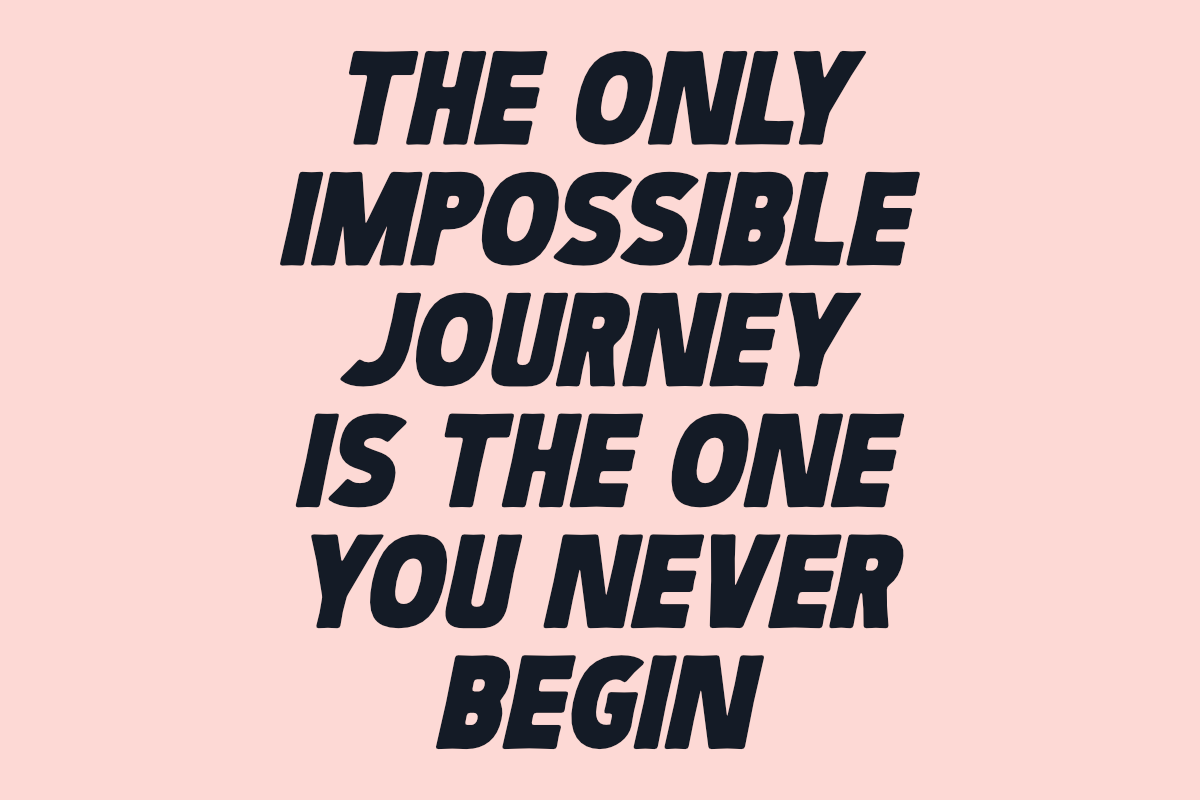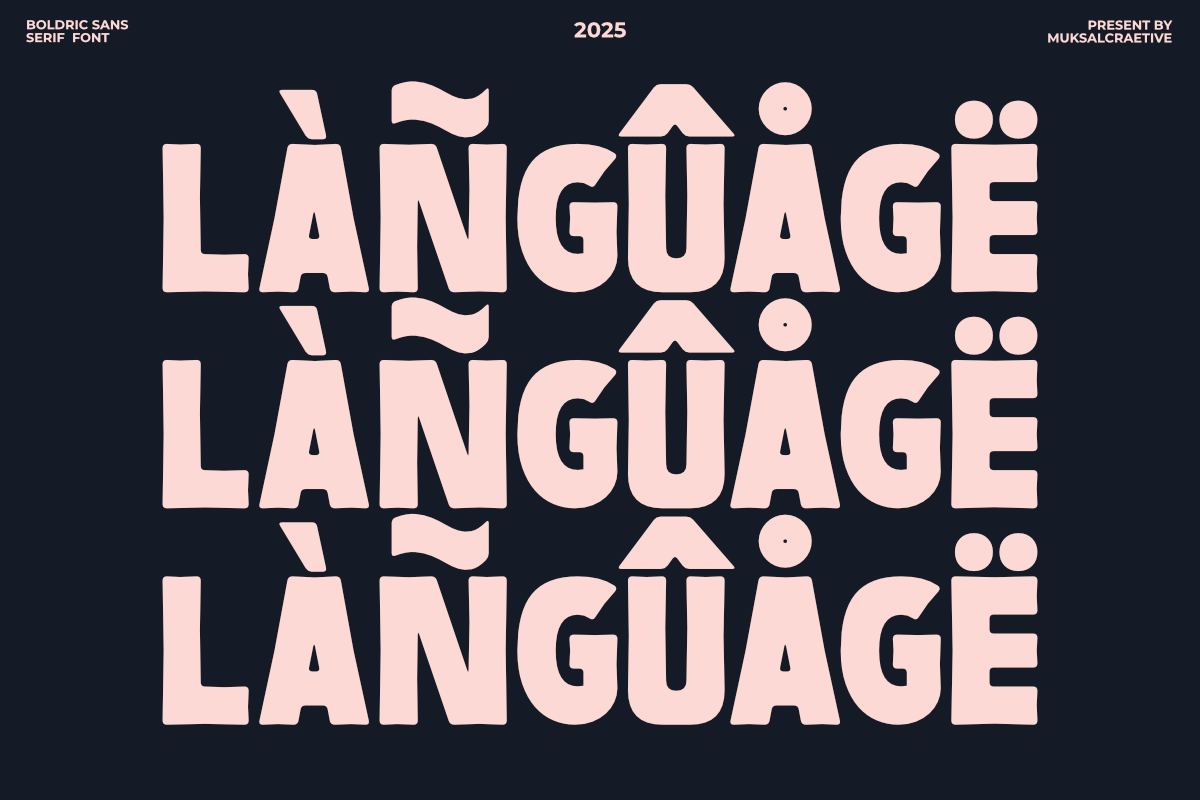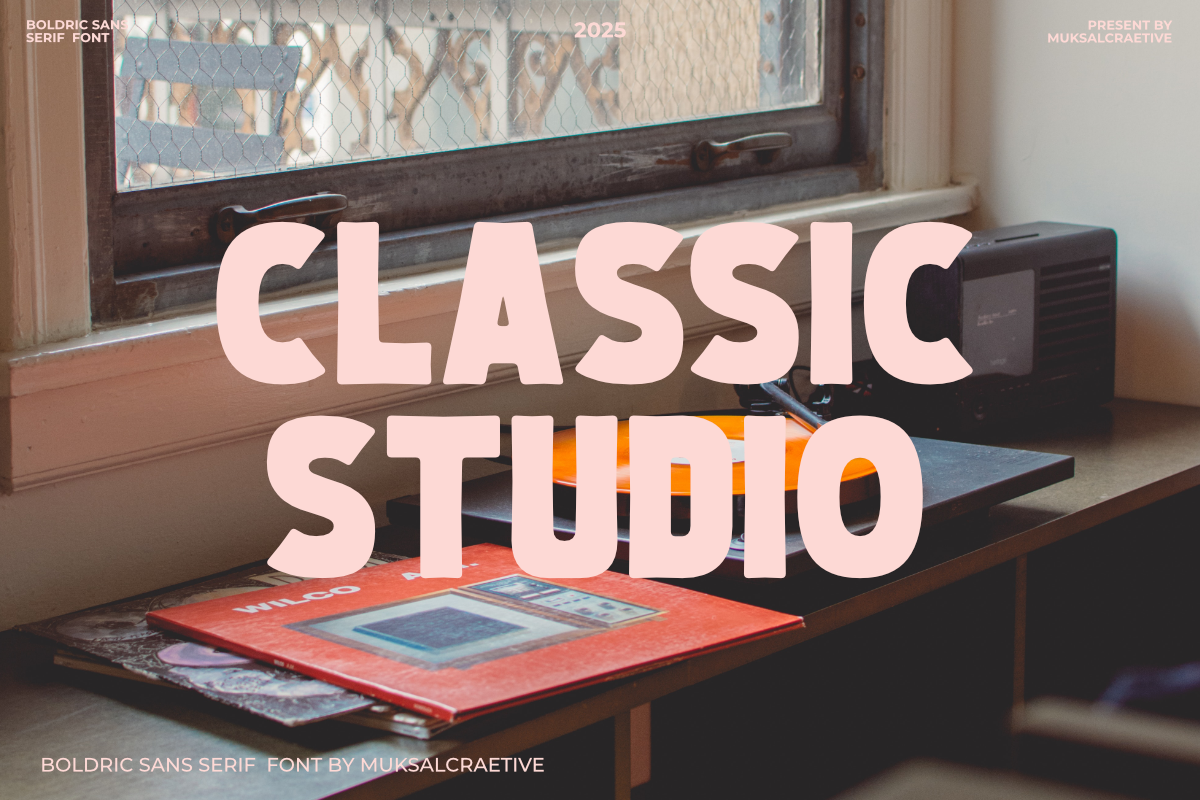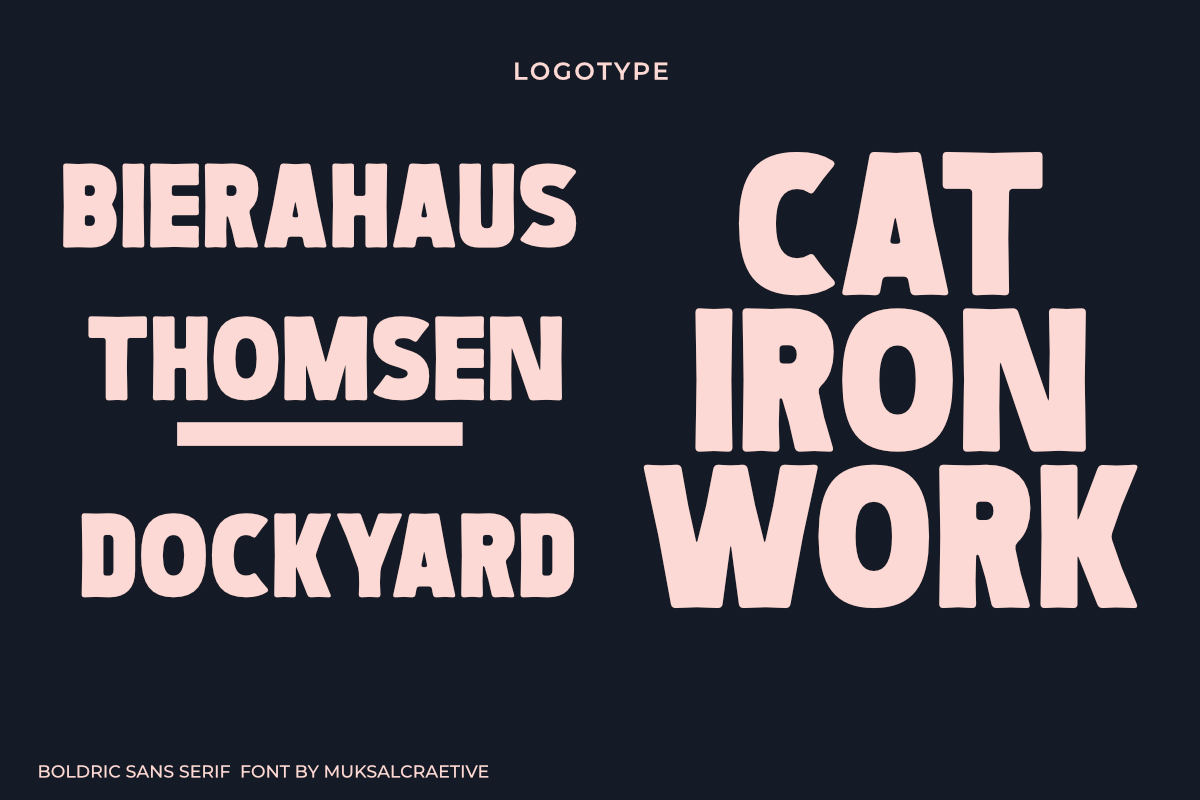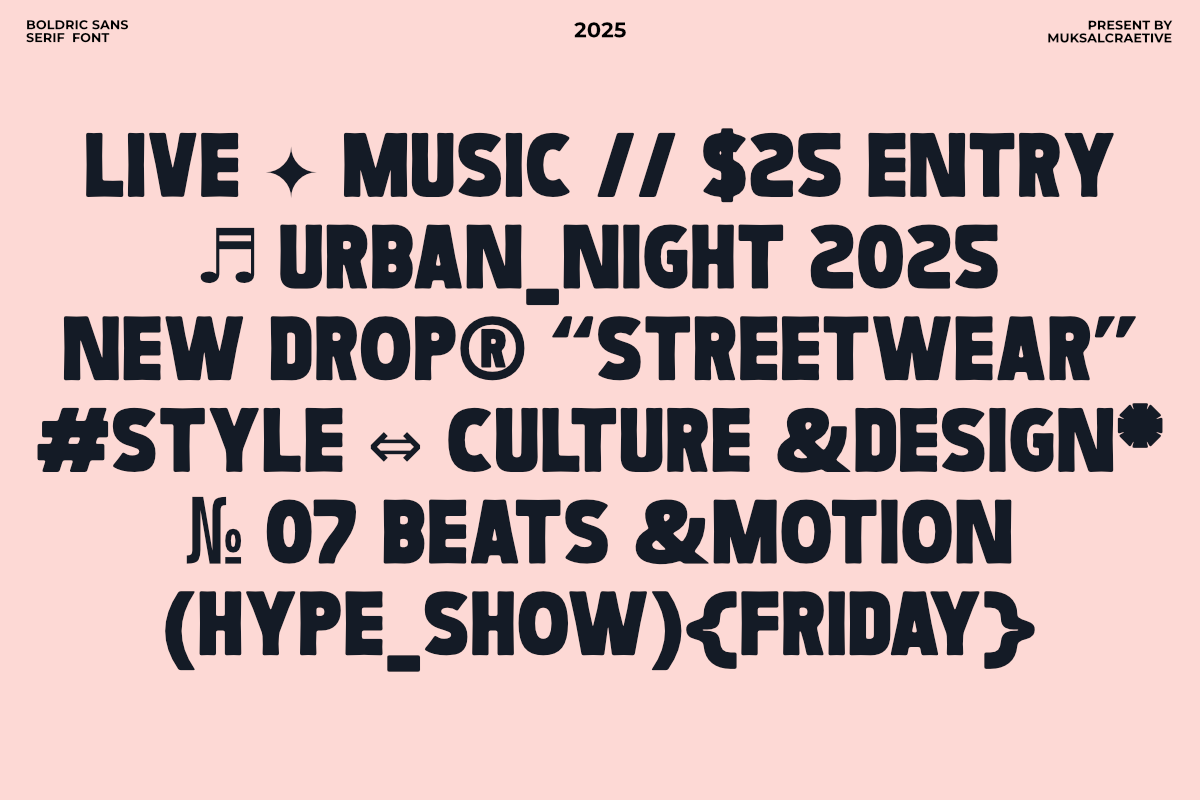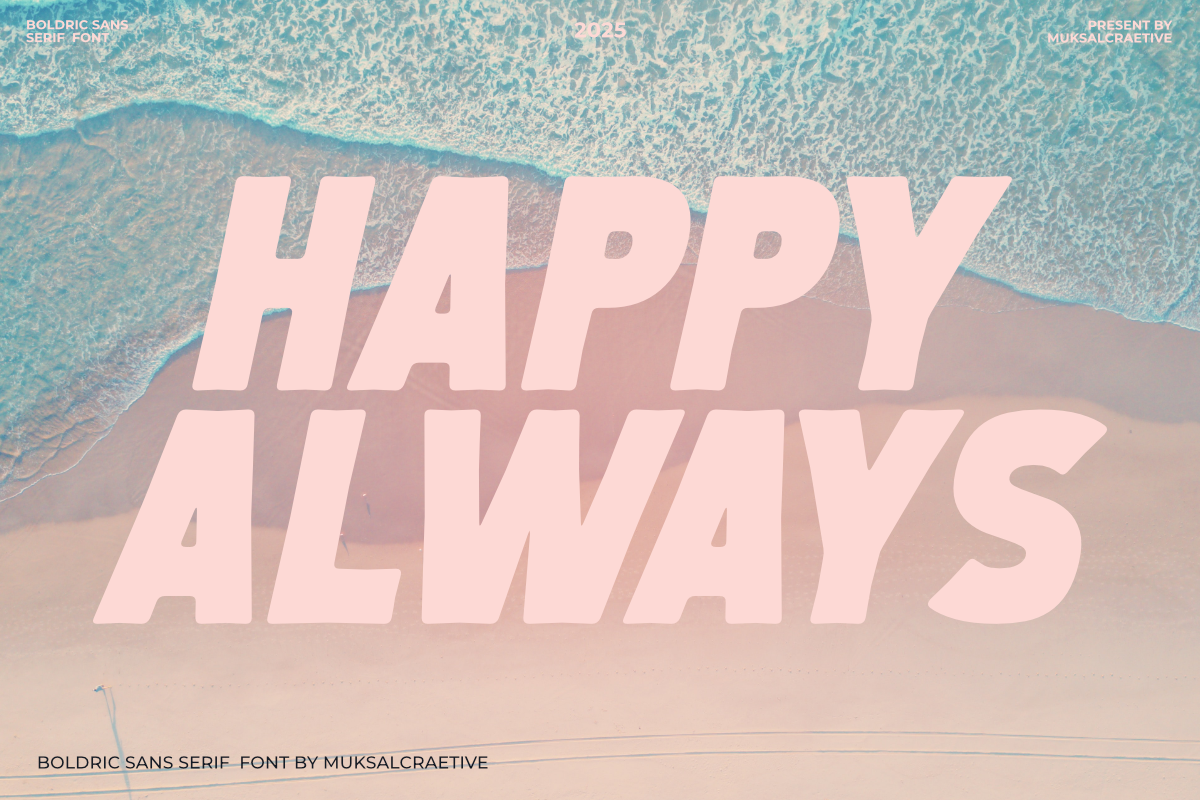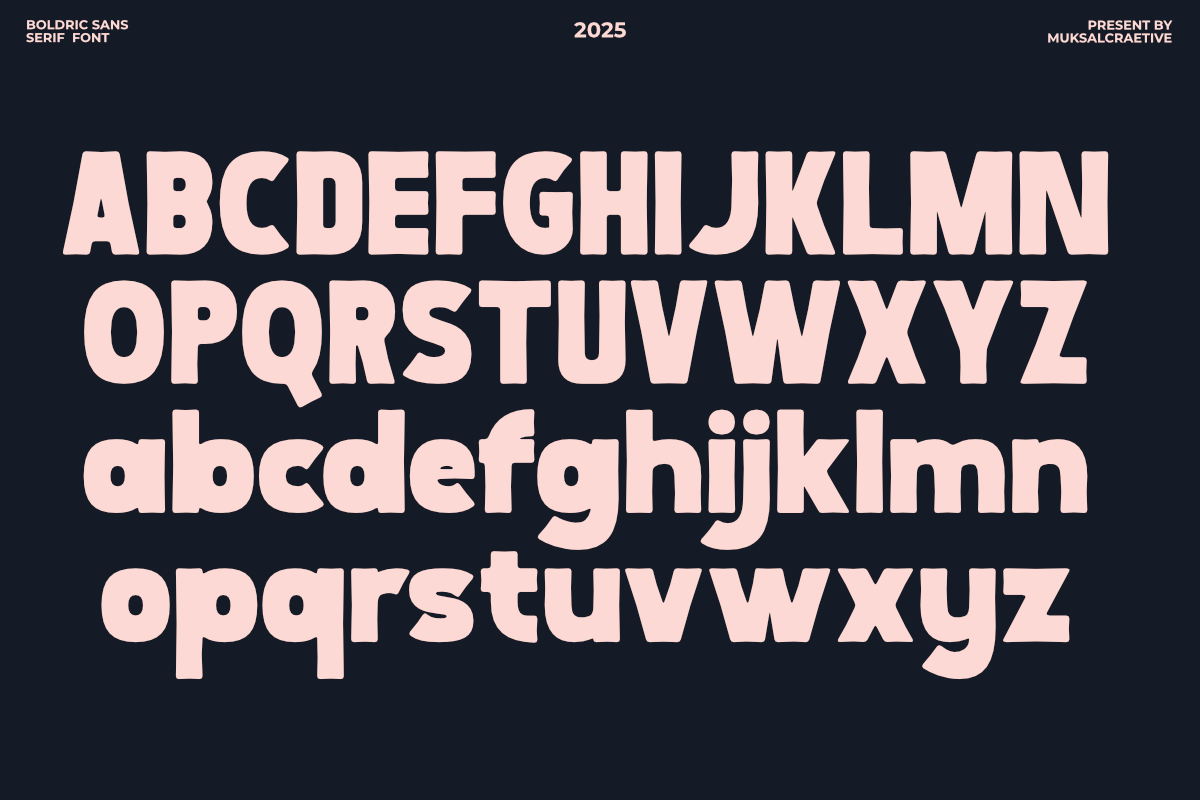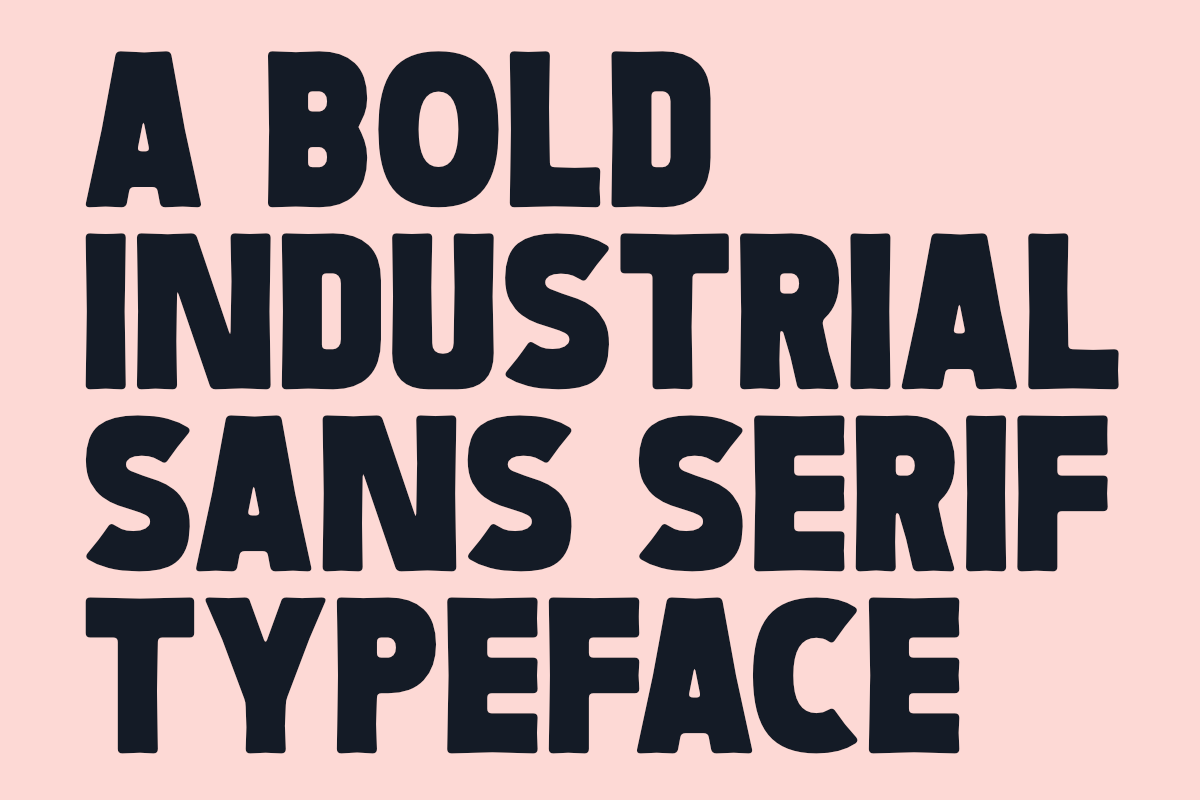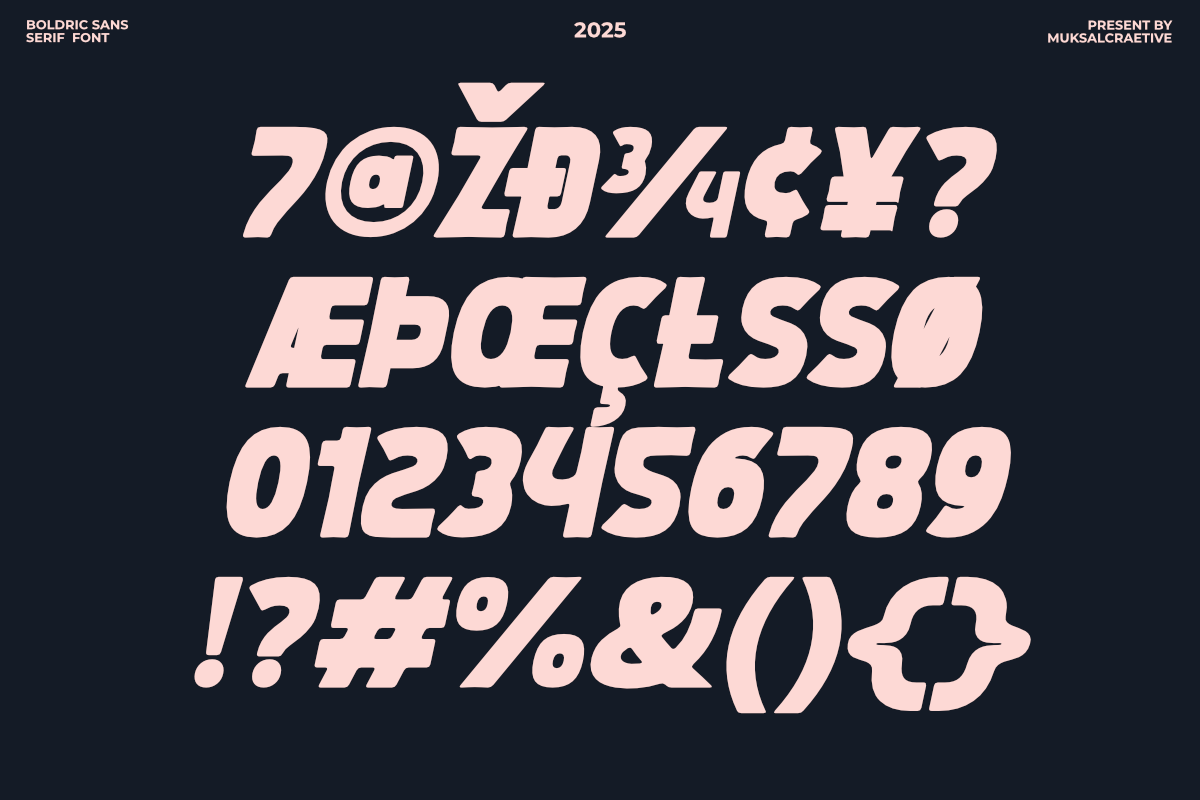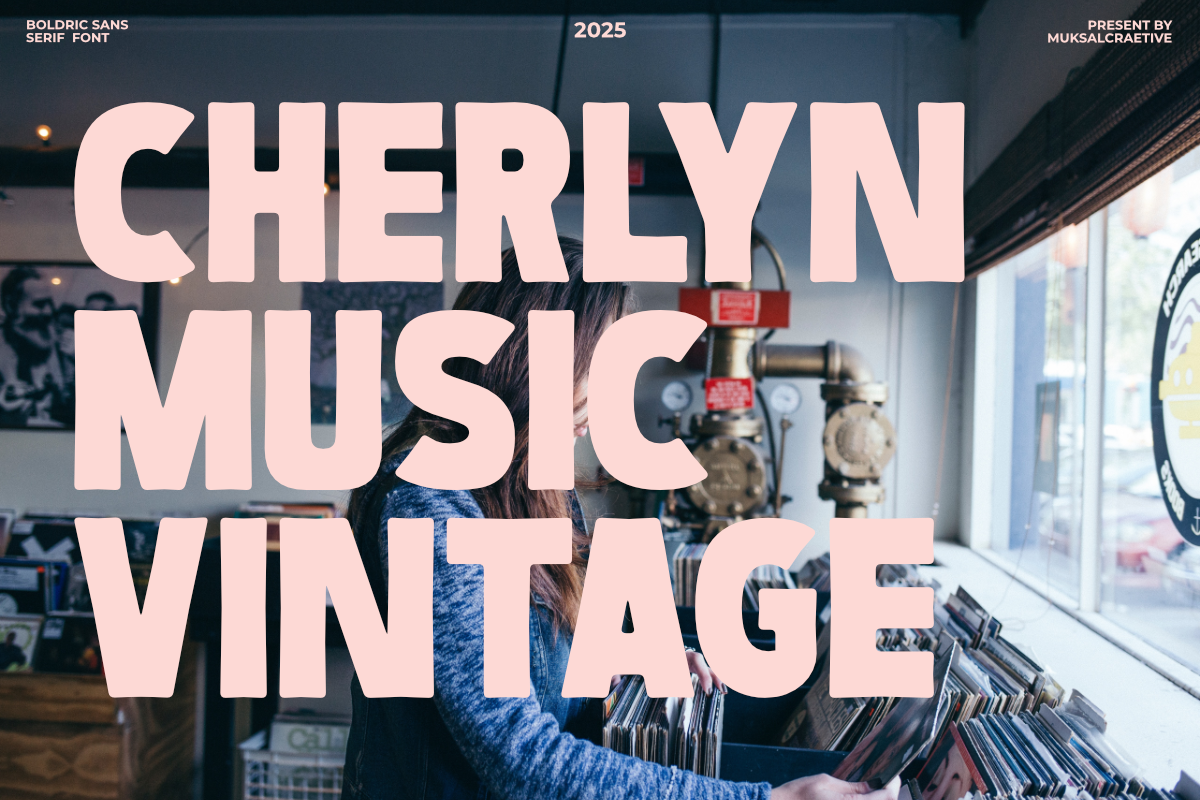
Boldric - Bold Industrial Sans Serif
Boldric is a bold industrial sans serif designed to deliver strength, clarity, and a modern edge. Inspired by vintage industrial signage and retro poster typography, Boldric combines sturdy letterforms with a contemporary feel—making it the perfect choice for impactful designs.
From logos, branding, packaging, signage, apparel, to editorial layouts and posters, Boldric stands out with its clean yet characterful style. It’s versatile enough for both digital use and print projects, ensuring your message is always bold and memorable.
✦ Features Complete Uppercase & Lowercase Numbers & Punctuation Multilingual Support Perfect for branding, posters, logos, packaging, signage, apparel Strong retro-industrial aesthetic with timeless appeal With Boldric, your designs will carry a powerful, masculine, and professional presence. A typeface built for creatives who want to make a bold statement.